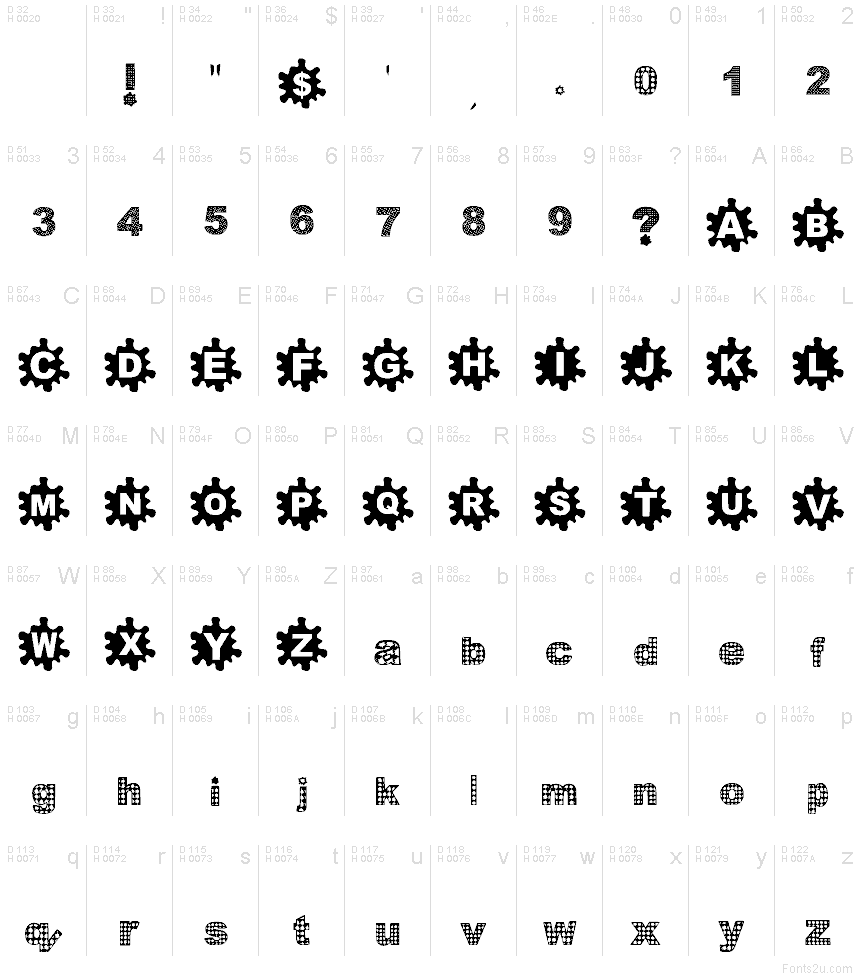
Paint Splatt Regular
Paint Splatt font by Ceridwen Evans is a free decorative display font. Its personality comes from splattery gear-like bursts and a dense crosshatch texture that makes each letter feel ink-soaked and hand-stamped. The mix of messy edges and tidy grid shading gives it a lively, tactile kick—like wet paint pressed through a stencil, still a little sticky.
Using Paint Splatt, headlines jump off the page for kids’ art camps, paint party invitations, DIY packaging, maker fairs, science-day posters, and craft-store signage. The rhythm stays legible at large sizes, while the gritty interior pattern adds depth without extra graphics. This free font pairs well with a clean, untextured sans for body copy; try generous tracking and bold sizes to let the splats breathe.